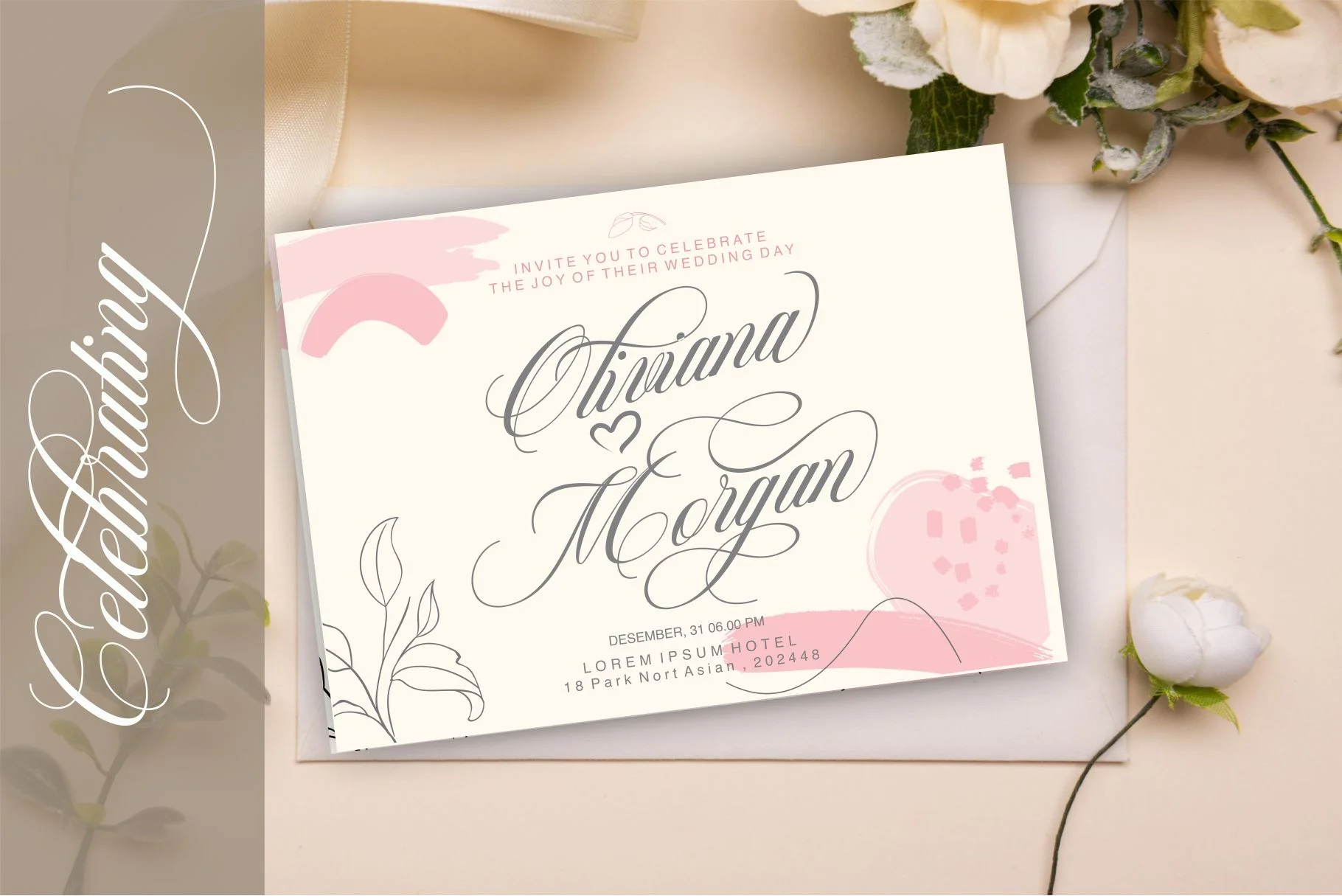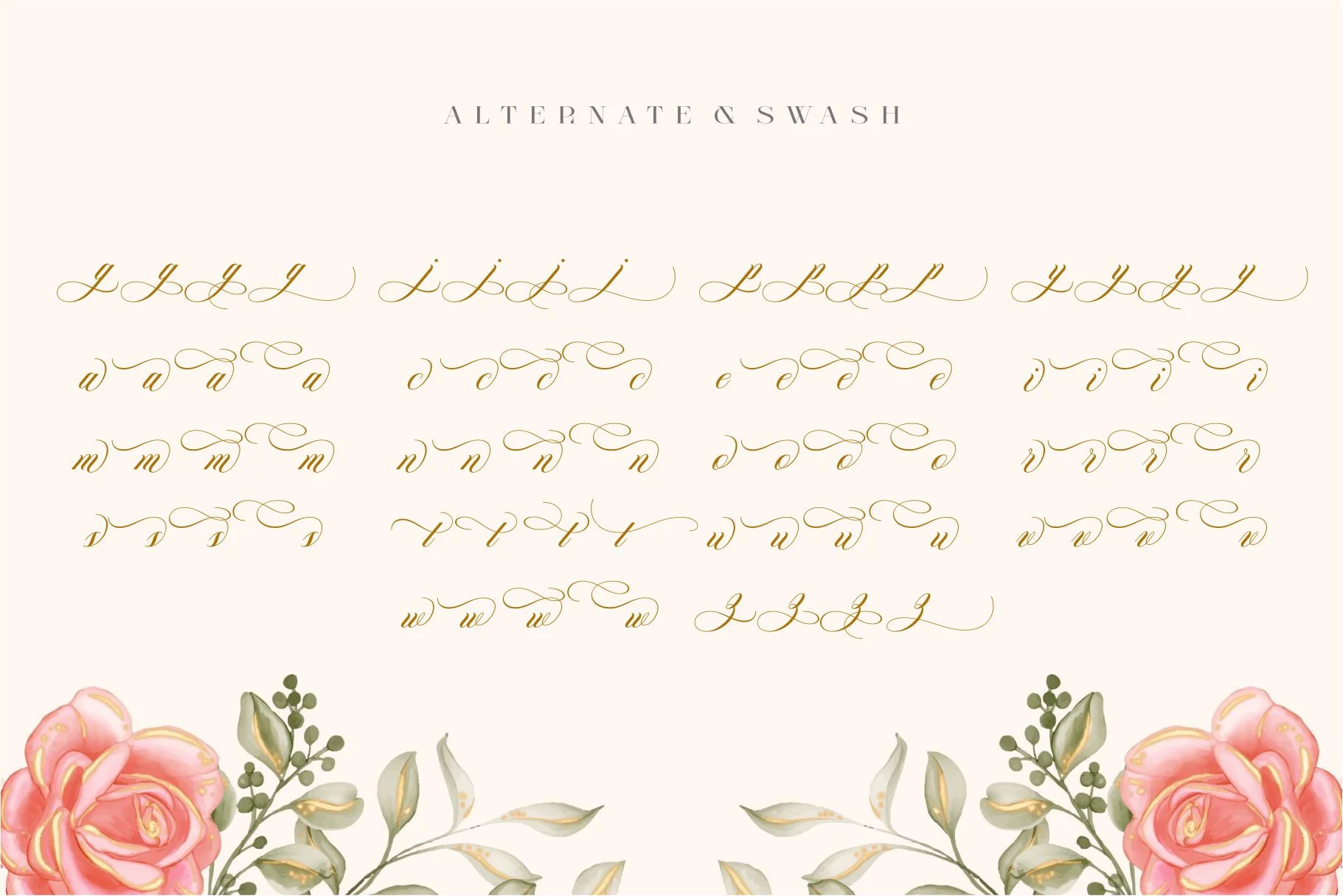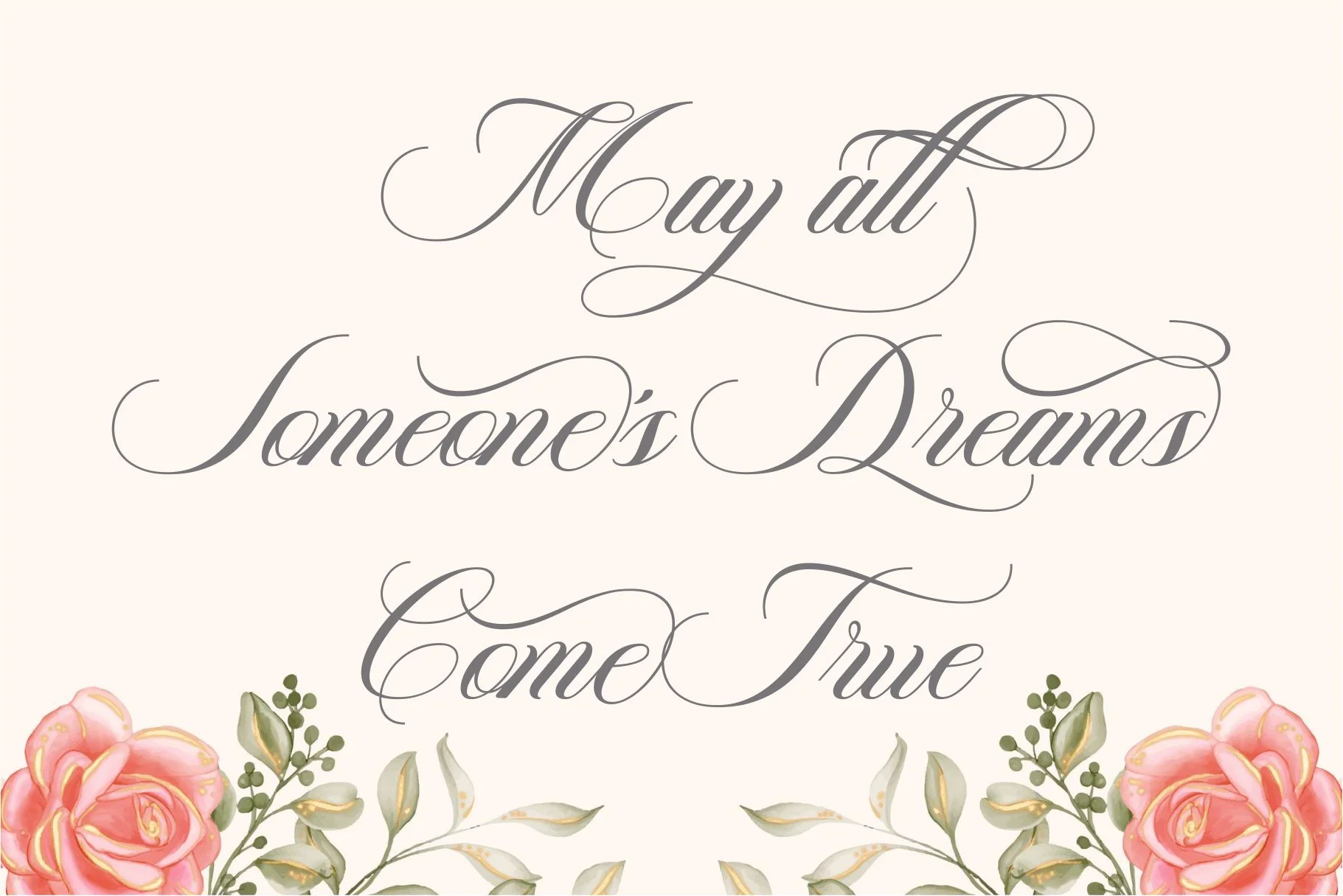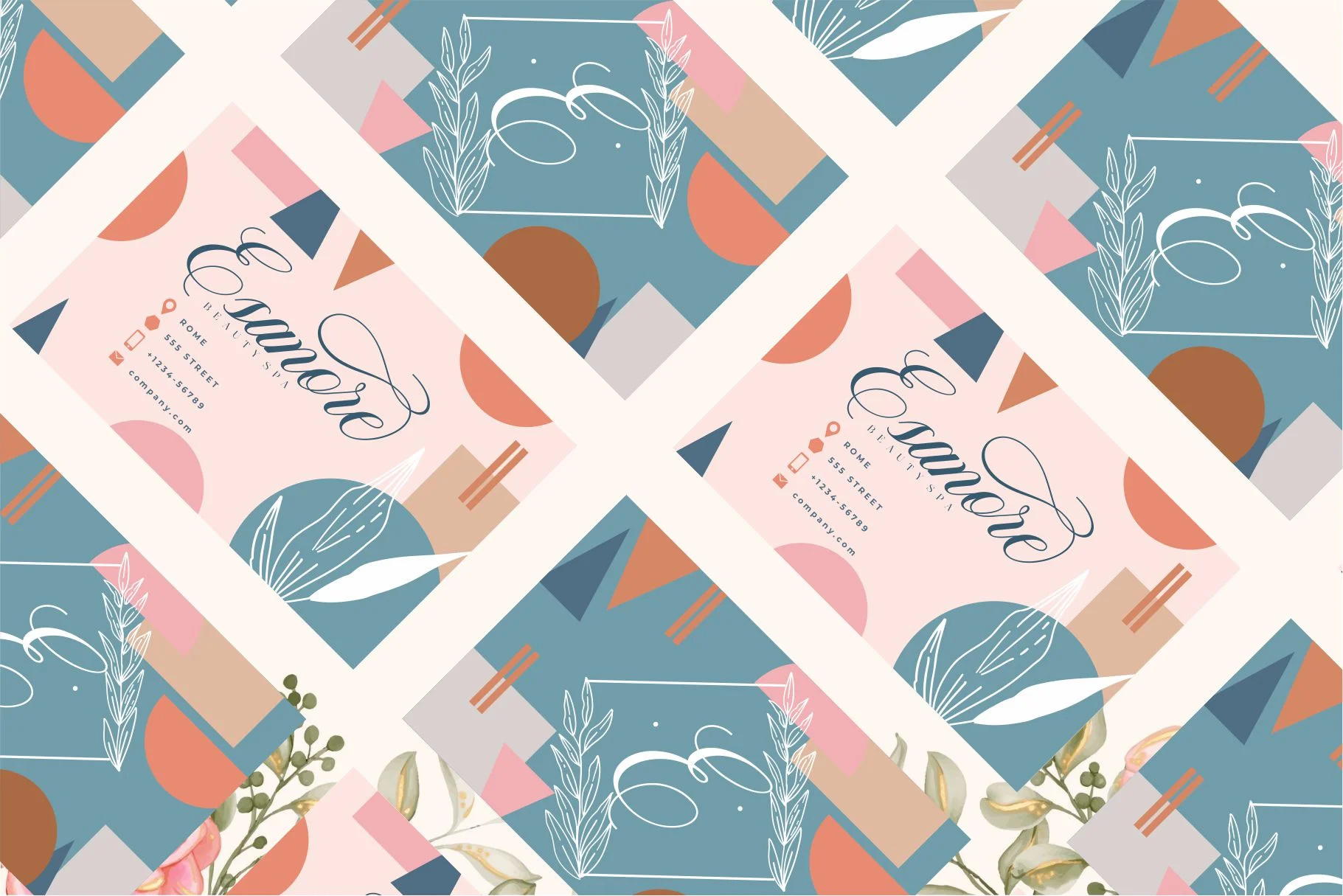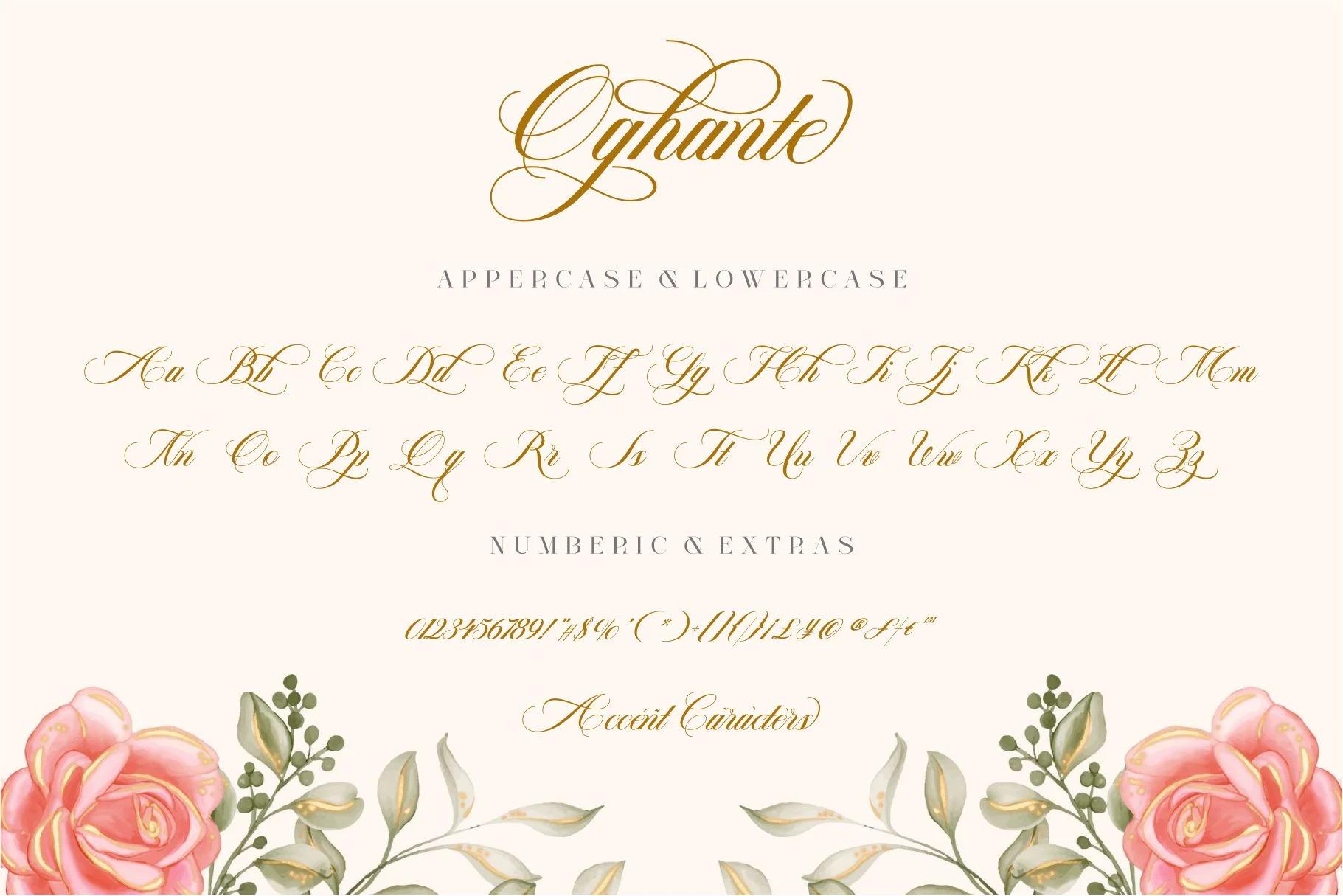
Oghante
Oghante is an elegant modern script font characterized by its high-contrast strokes and sophisticated, flowing letterforms. It blends sleek, confident curves with dramatic calligraphic swashes to create a romantic and polished aesthetic. This typeface is specifically designed for high-impact visual projects, making it ideal for wedding invitations, feminine branding, luxury logos, and upscale editorial designs.